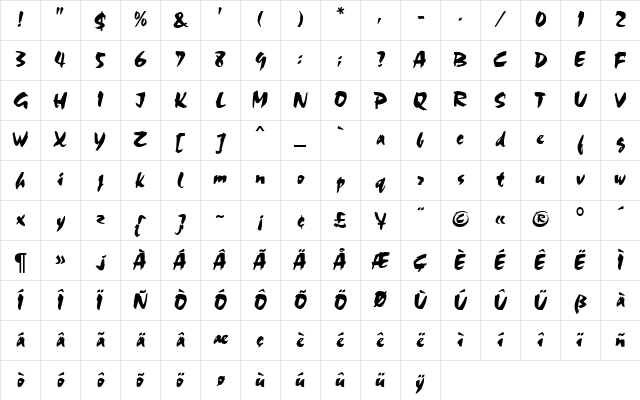
Complete Choc MN Regular glyph index. Displaying only characters natively supported by Choc MN Regular font.
Choc MN is a composed and adaptable typeface that performs quietly and consistently across a wide range of design contexts.